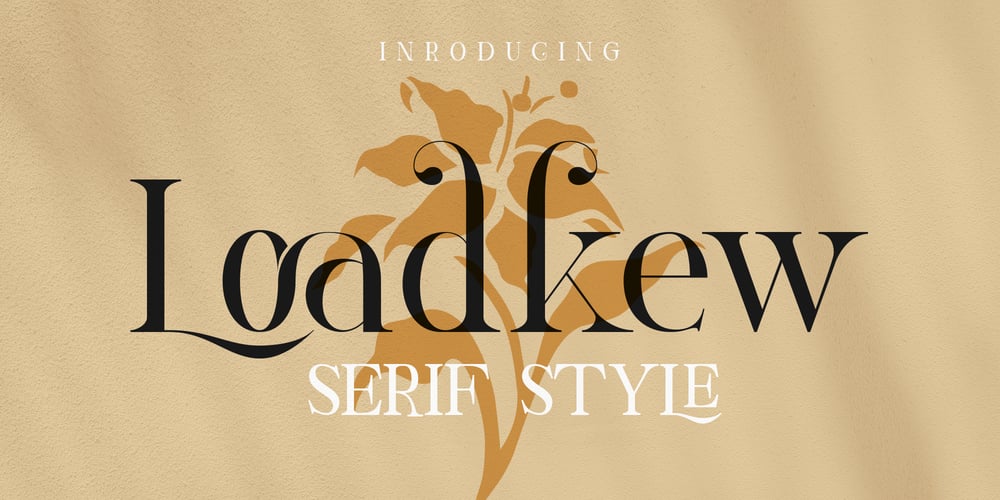
Loadkew Font Family was designed by Arif Fadilah and published by Luhop Creative. Loadkew contains 4 styles and family package options. Loadkew is an elegant classic serif font family consisting of a high contrast serif fonts with a vintage chic look,The handsome serif comes in 4 weights, (Regular,Italic,Bold,and Extra Bold,) are enhanced by OpenType features such as ligatures and stylistic alternates.Loadkew can be used in high-end branding, logo designs, magazines, product packaging & invitations. Loadkew is also included full set of: uppercase and lowercase letters multilingual support symbols & numerals punctuation standard ligatures -alternates What will you get? Loadkew Regular.Otf Loadkew Italic.Otf Loadkew Bold.Otf Loadkew ExtraBold.Otf Wish you enjoy our font and if you have a question, don’t hesitate to drop message & I’m happy to help ๐